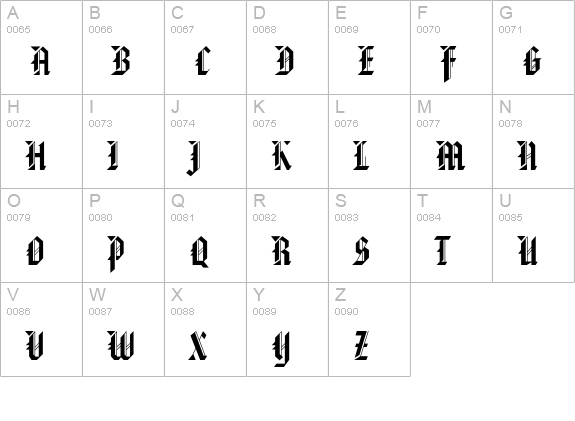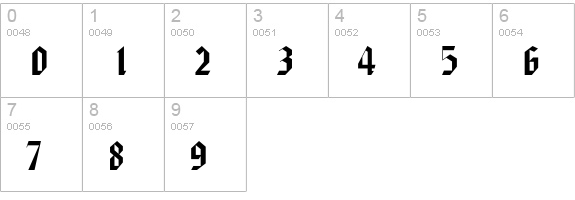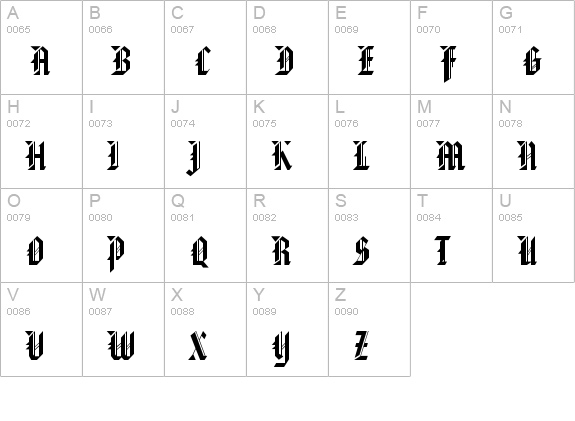
Nottingham Font Details
Nottingham font is a classic and timeless typeface that exudes elegance and sophistication. With its clean lines and sharp edges, Nottingham font is perfect for a wide range of design projects, from elegant invitations to professional business presentations. Its versatility makes it a popular choice among designers looking for a font that can effortlessly elevate their work. What sets Nottingham font apart is not only its stunning aesthetics but also the fact that it is available for free download at FontsMarket.com. This means that you can easily access this beautiful typeface without any cost, making it a valuable addition to your font collection. Whether you're working on a branding project, creating beautiful graphics, or designing a sleek website, Nottingham font is sure to make a statement. Its timeless appeal and modern flair will help you achieve a polished and professional look in all your design endeavors. Download Nottingham font for free today and elevate your designs to new heights.